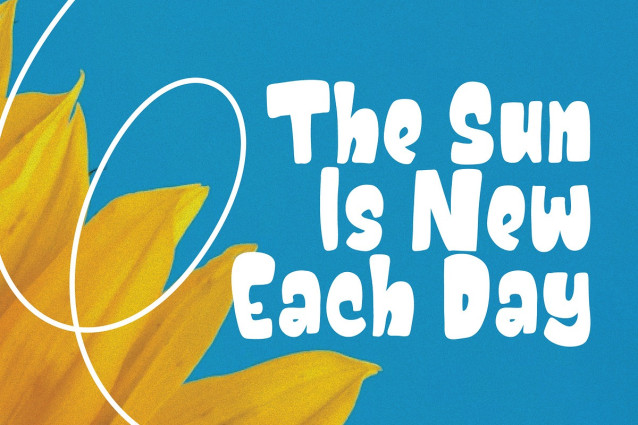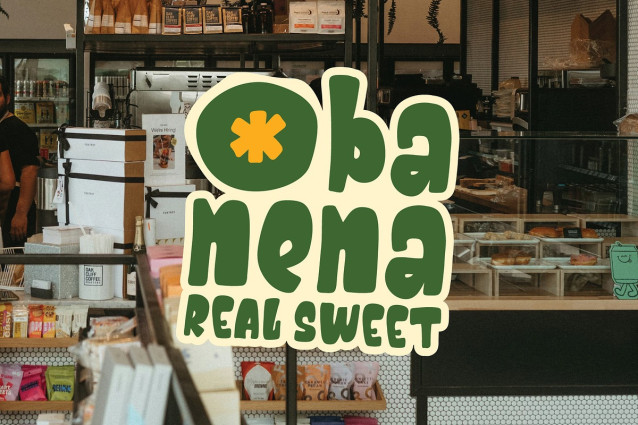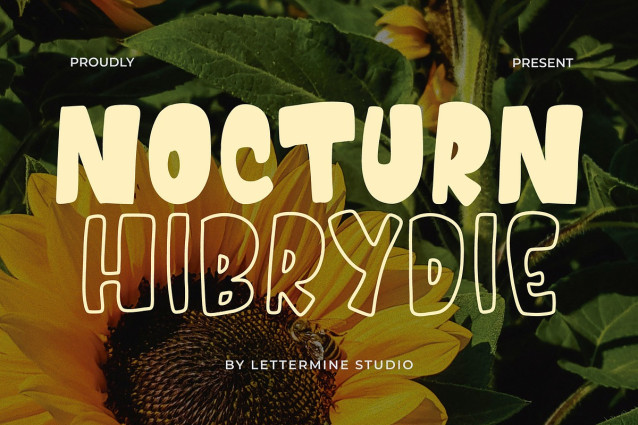
Nocturn Hibrydie Font
Nocturn Hibrydie Font is a display sans serif font with bold, chunky letterforms and a playful modern personality. Designed to stand out, this typeface combines strong shapes with smooth curves, creating a fun and eye-catching visual impact.